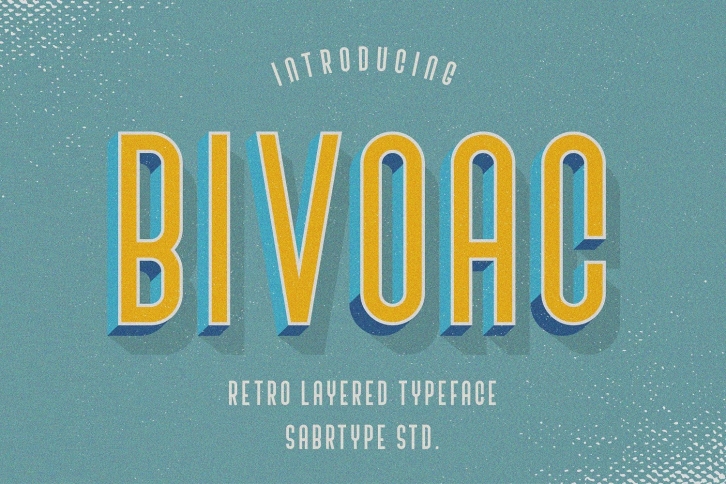
SALE! Bivoac Layered is a great font that was designed by Sabrcreative. Imagine the amount of combinations you can create using this font! The archive is 10.4 MB and it was released on December 18, 2018. SALE! Bivoac Layered looks beautiful on wedding invitations, greeting cards, logos, posters, labels, t-shirt designs, logos, business cards and is perfect for use in ink or watercolor works, fashion, magazines, packaging and food menus, children's books and more!